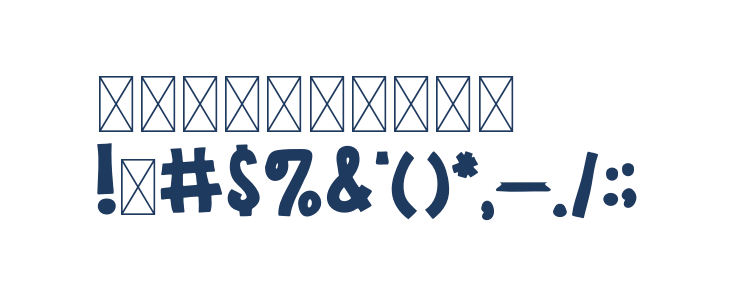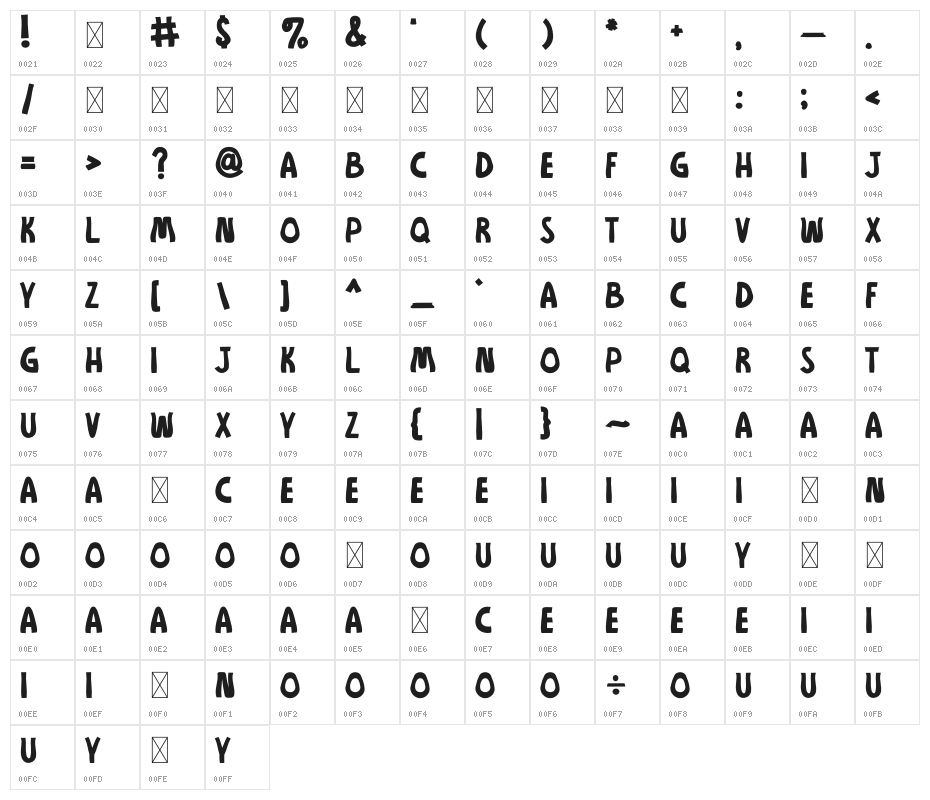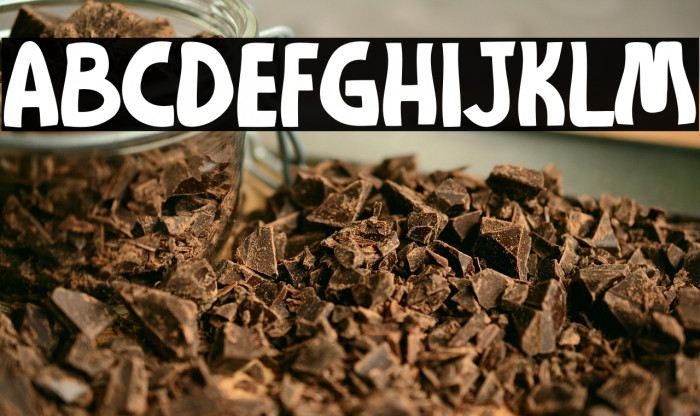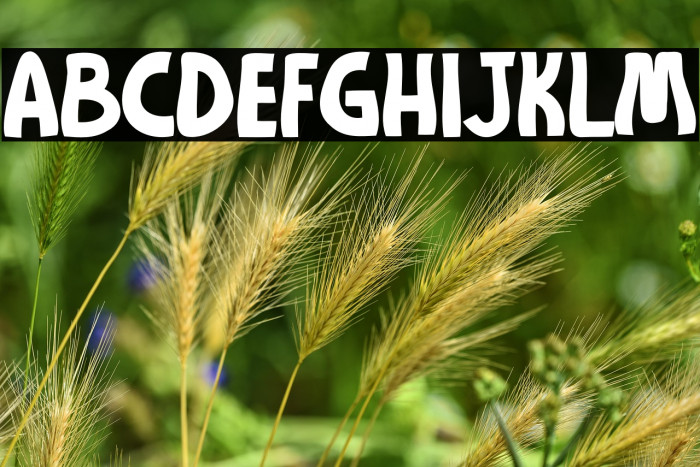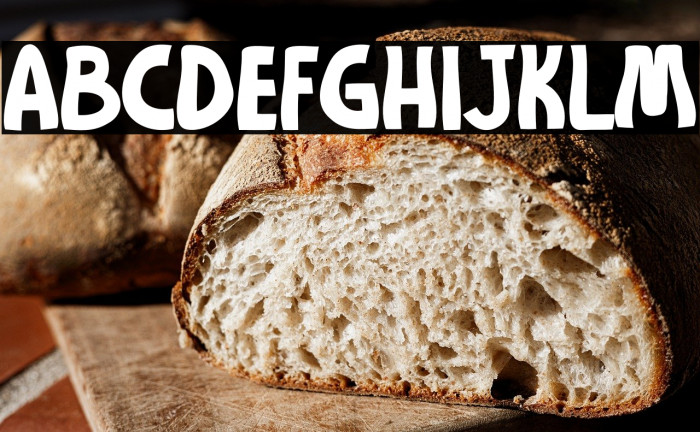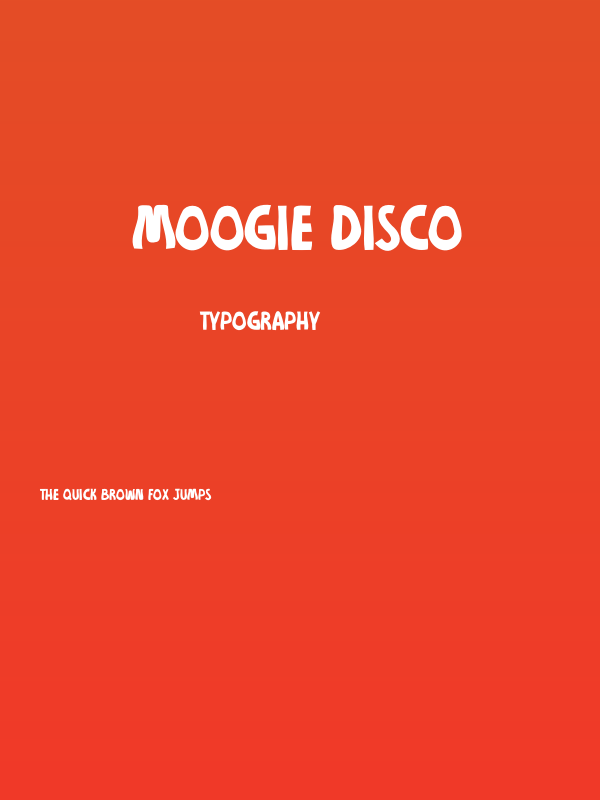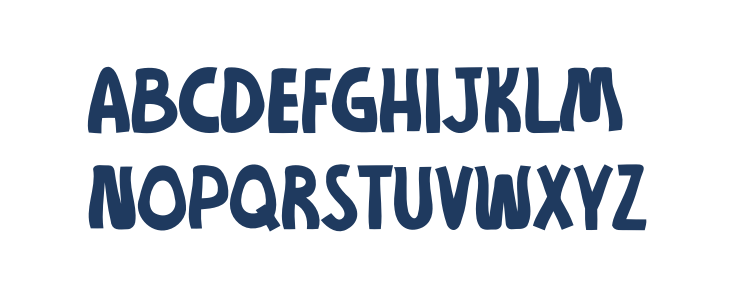
Moogie Disco Font
Moogie Disco Description
This font features a bold and playful design, characterized by its thick, rounded strokes and slightly irregular letterforms. The uppercase letters are prominent and eye-catching, making it ideal for attention-grabbing headlines or titles. The font exudes a retro, disco-inspired vibe, with a touch of whimsy and fun. Its unique style is suitable for creative projects that require a distinctive and lively appearance. The characters are well-spaced, ensuring readability while maintaining a dynamic and energetic feel.
| Overall Style | Retro, Fun, Energetic |
| Use Case | Headlines, Posters, Branding |
| Proposed Projects | Ideal for posters, album covers, party invitations, and branding projects that seek a fun and energetic look. |